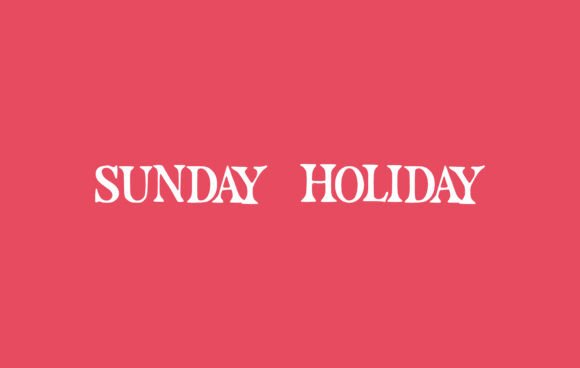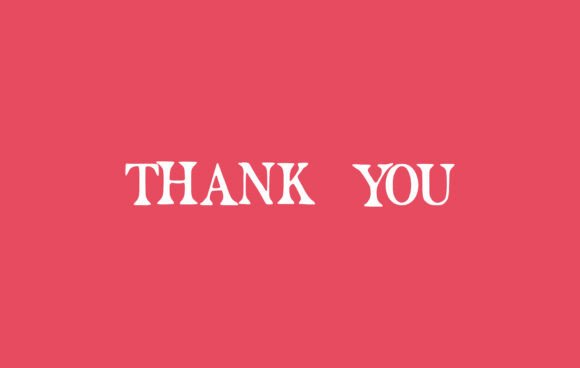
Discover the Charm of Hassan Font: Elevate Your Designs with a Romantic Touch
In the world of typography, a font can make all the difference in bringing your creative vision to life. If you’re a designer, crafter, or simply someone who appreciates the art of beautiful writing, then you’re in for a treat. Introducing Hassan Font, an authentic and romantic typeface that’s expertly designed to capture your heart and take your designs to new heights.
The Essence of Hassan Font
Hassan Font is more than just a collection of letters; it’s an experience. With its unique blend of classic elegance and modern flair, this font is sure to become your go-to choice for a wide range of design projects. Whether you’re working on a magazine headline, social media post, branding campaign, wedding invitation, or card, Hassan Font is the perfect companion to help you convey your message with style and sophistication.
What Makes Hassan Font Stand Out?
- Legibility: One of the standout features of Hassan Font is its exceptional legibility. Whether you’re using it as a title or body text, this font ensures that your message is conveyed clearly and effectively, making it perfect for both digital and print applications.
- Romantic Touch: Hassan Font boasts a romantic touch that adds a layer of emotional depth to your designs. Its elegant lines and curves evoke feelings of nostalgia and warmth, making it ideal for designs that require a personal and heartfelt approach.
- Versatility: This font is incredibly versatile, suitable for a wide range of design projects. From editorial design to branding, and from digital media to print materials, Hassan Font adapts seamlessly to different contexts, ensuring your designs always look stunning.
- Authenticity: In a world where generic fonts can make designs look bland and unoriginal, Hassan Font stands out with its authentic charm. It’s a true original, crafted with love and care to bring a unique character to your designs.
Applications of Hassan Font
The possibilities are endless with Hassan Font. Here are some of the many ways you can use this beautiful typeface:
- Magazine Headlines: Create eye-catching headlines that draw readers in with Hassan Font’s elegant and attention-grabbing style.
- Social Media: Elevate your social media presence with stunning text posts and stories that showcase your brand’s personality.
- Branding: Develop a strong brand identity with Hassan Font, perfect for logos, business cards, and other marketing materials.
- Wedding Invitations: Add a touch of romance and sophistication to your wedding invitations and save-the-date cards.
- Cards and Stationery: Create beautiful greeting cards, thank-you notes, and other stationery items that showcase your personal style.
Tips for Using Hassan Font Effectively
To get the most out of Hassan Font, here are some expert tips:
- Experiment with Sizes: Don’t be afraid to play with different font sizes to create visual hierarchy and emphasize key messages.
- Pair it Wisely: Combine Hassan Font with complementary fonts to create a unique and harmonious typography scheme.
- Pay Attention to Spacing: Adjust the letter spacing and line height to ensure your text is easy to read and visually appealing.
Hassan Font is more than just a font; it’s a design companion that can help you bring your creative ideas to life. With its romantic touch, exceptional legibility, and versatility, this font is sure to become a favorite in your design arsenal. Whether you’re a seasoned designer or a crafty DIY enthusiast, Hassan Font is the perfect choice for anyone looking to add a touch of elegance and sophistication to their designs. So why wait? Discover the charm of Hassan Font today and elevate your designs to new heights!